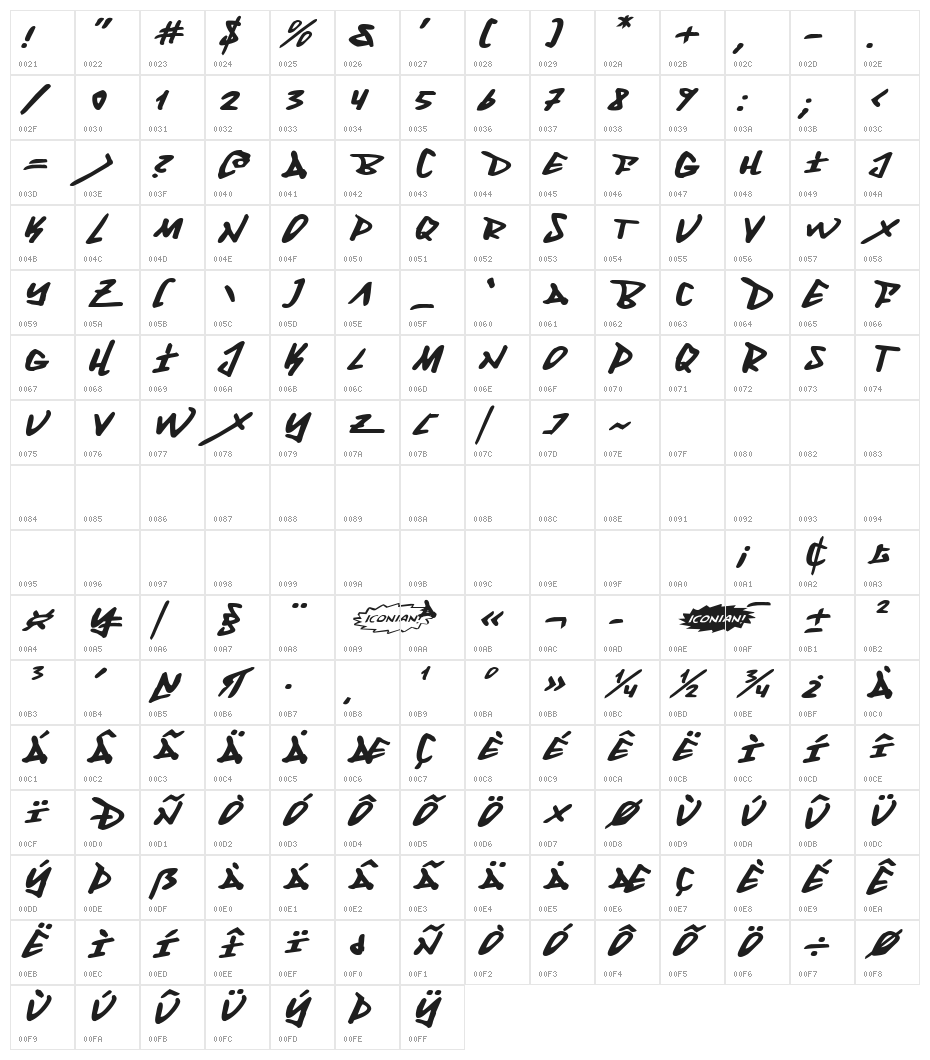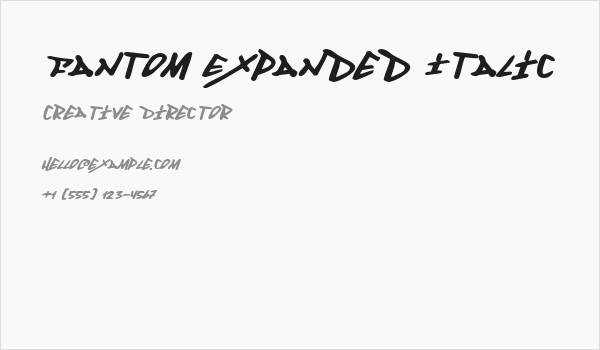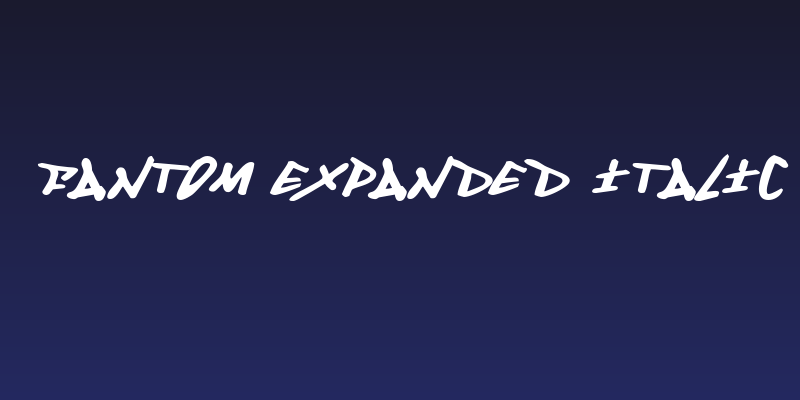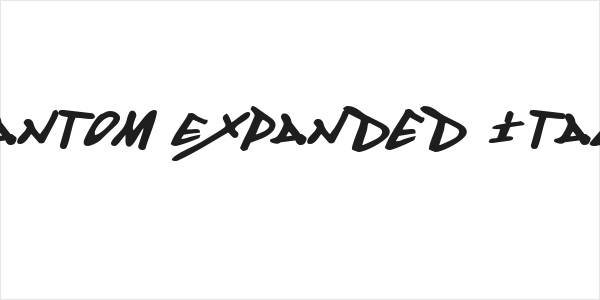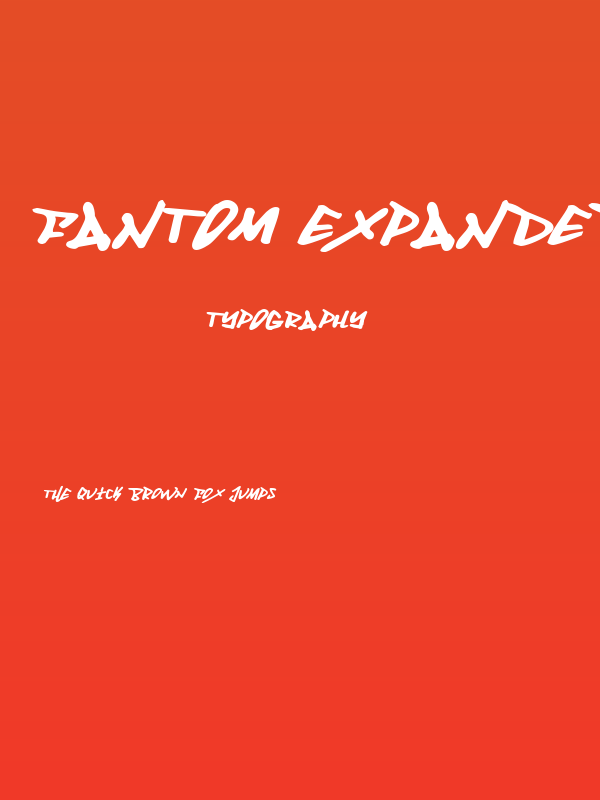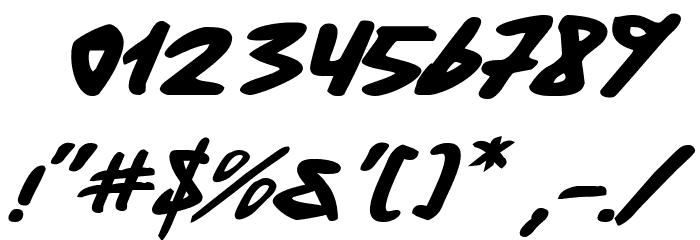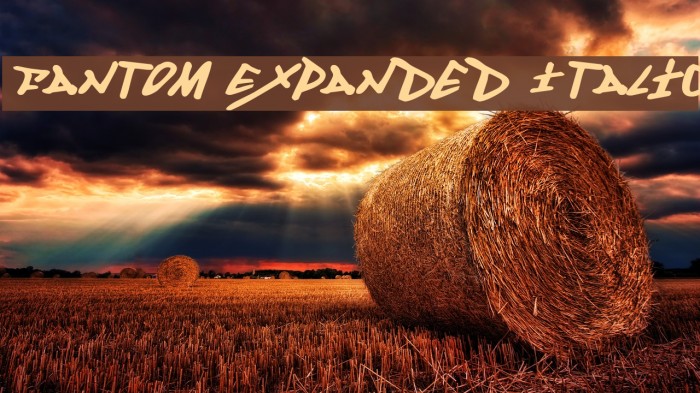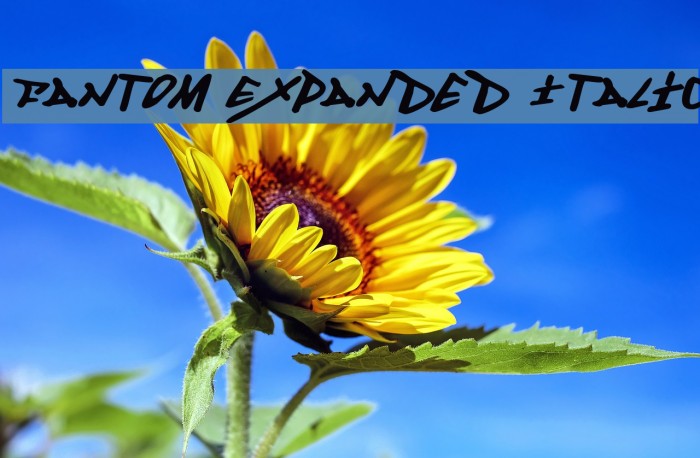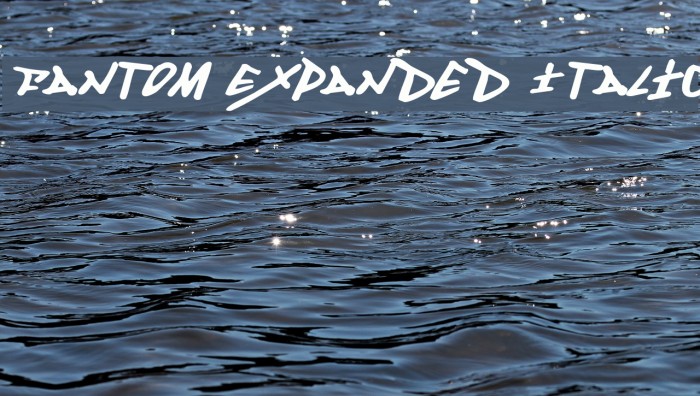
Fantom Expanded Italic Font
Fantom Expanded Italic Description
This font features a bold and dynamic script style with an italic slant, giving it a sense of movement and energy. The characters are expanded, providing a wide and open appearance that enhances readability while maintaining a unique flair. The strokes are thick and consistent, contributing to a strong visual impact. The font's design is modern and expressive, making it suitable for creative and eye-catching projects. The uppercase and lowercase letters maintain a cohesive style, with smooth curves and sharp angles that add to its distinctive character. The numerals and special characters are well-integrated, ensuring versatility across various applications.
| Proposed Projects | Ideal for branding, posters, headlines, and any design requiring a bold, expressive touch. |